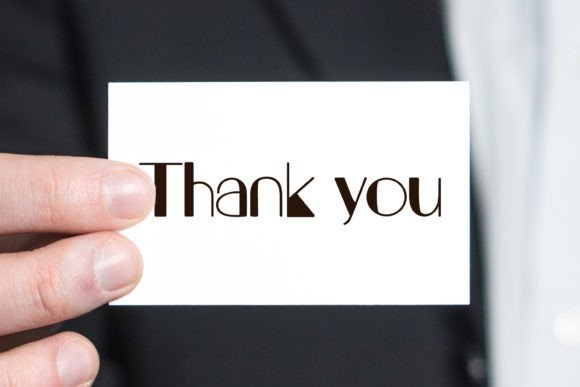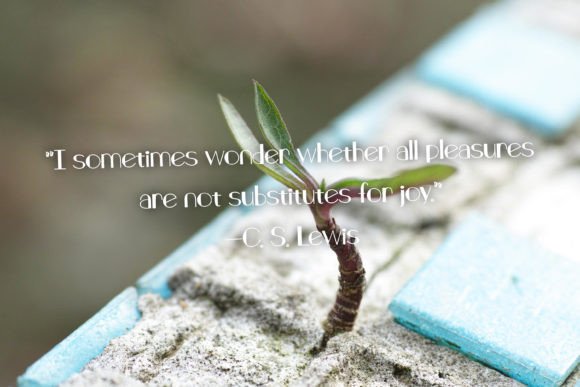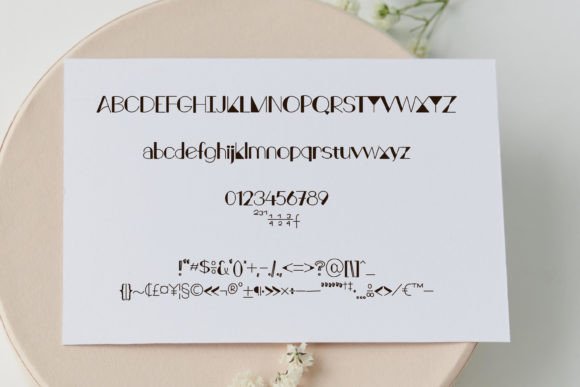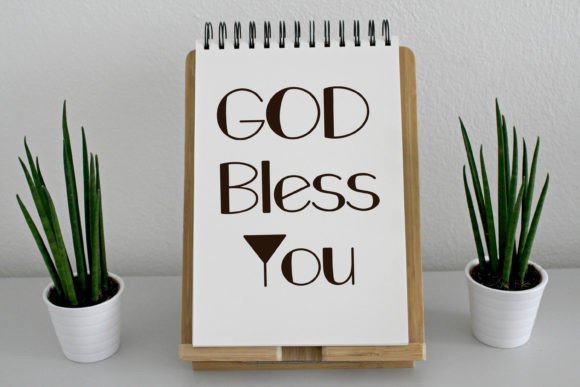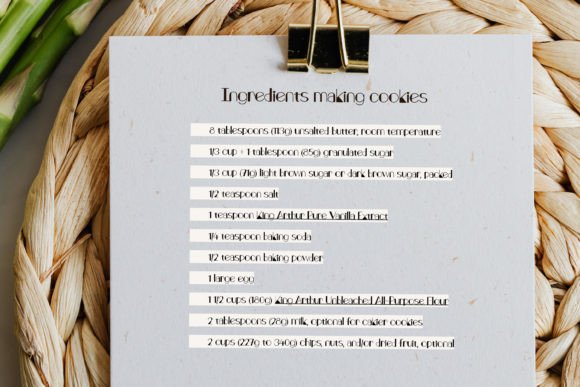
Cookies Font: The Perfect Choice for Your Creative Projects
Are you a designer or crafter looking for a unique and stylish font to elevate your creative projects? Look no further than Cookies Font! This quirky and elegant sans serif font is perfect for a wide range of applications, from invitations and cards to flyers, menus, displays, logos, and more.
What Makes Cookies Font So Special?
Cookies Font boasts a distinctive design that sets it apart from other fonts. Its elegant and refined style makes it perfect for projects that require a touch of sophistication, while its quirky undertones add a playful and whimsical feel. This font is sure to capture the attention of your audience and leave a lasting impression.
Key Features of Cookies Font
- Unique and Quirky Design: Cookies Font features a one-of-a-kind design that is both stylish and eye-catching.
- Elegant and Refined: The font’s elegant design makes it perfect for projects that require a touch of sophistication.
- Sans Serif: The clean and modern sans serif design makes it easy to read and versatile for various applications.
- Wide Range of Uses: Cookies Font is suitable for invitations, cards, flyers, menus, displays, logos, and more.
Cookies Font is a dream come true for designers and crafters who want to add a personal touch to their projects. Whether you’re creating custom invitations, designing a logo for a client, or crafting a menu for a restaurant, this font is sure to inspire your creativity.
Tips and Tricks for Getting the Most Out of Cookies Font
- Pair it with Other Fonts: Cookies Font pairs well with other sans serif fonts, but feel free to experiment with different font combinations to create a unique look.
- Experiment with Colors: Try out different colors and gradients to add depth and interest to your design.
- Use it for Headings and Titles: Cookies Font is perfect for headings and titles, but you can also use it for body text for a more playful look.
Cookies Font is a versatile and stylish font that is perfect for designers and crafters who want to add a touch of elegance and whimsy to their projects. With its unique design, wide range of uses, and ease of use, it’s a must-have font for anyone looking to elevate their creative projects.